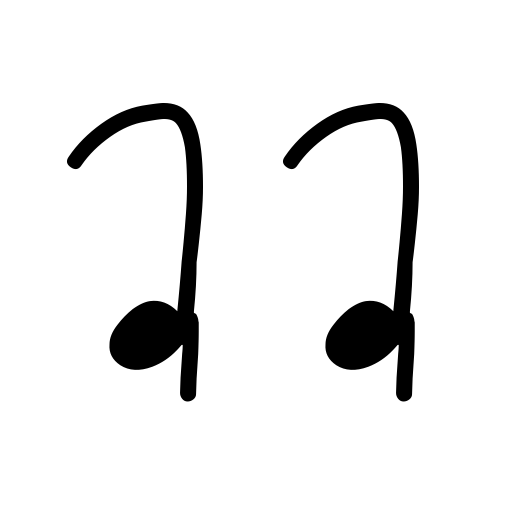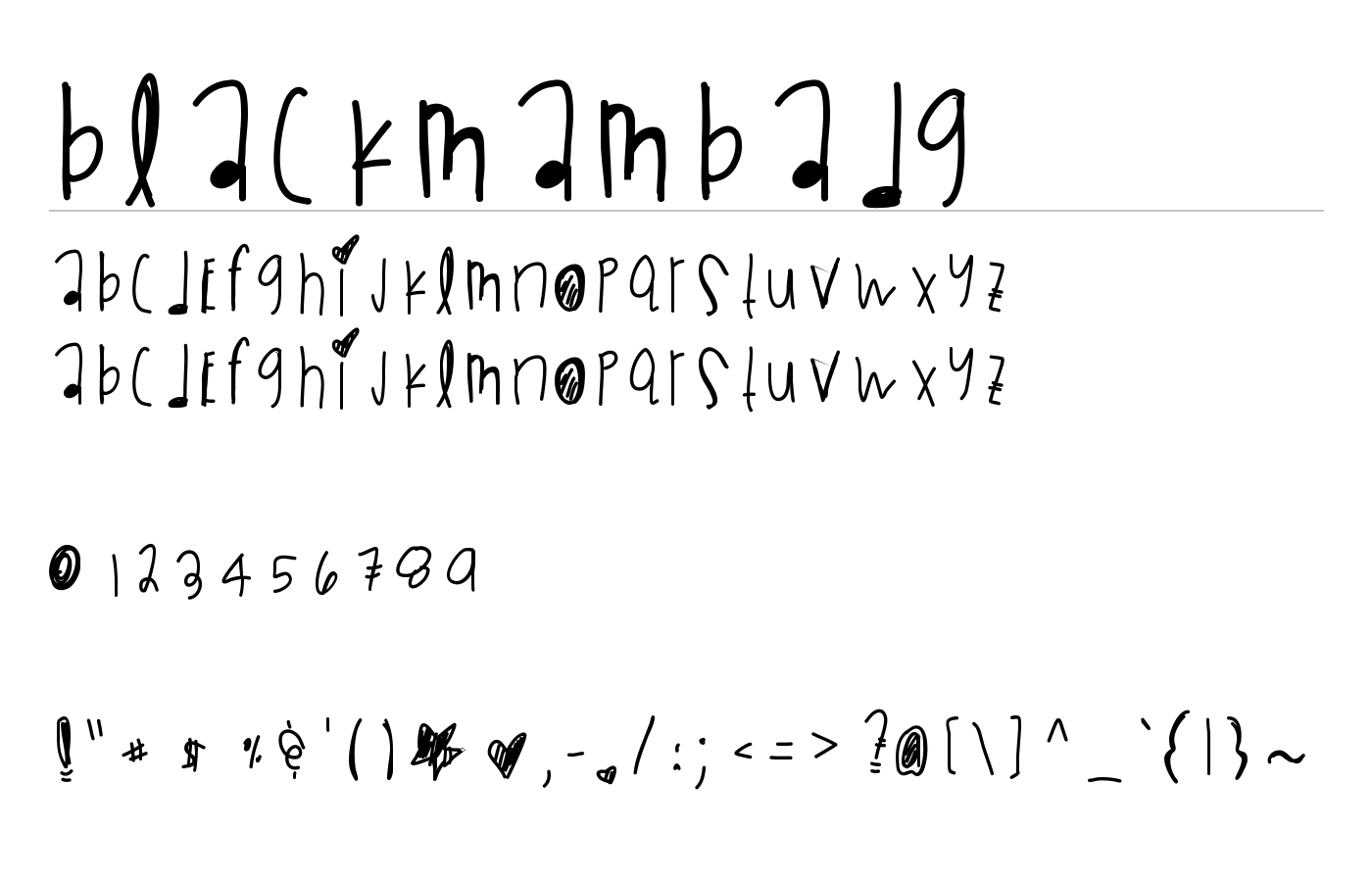
BlackMambaDg is a playful, handwritten sans serif font with tall, narrow letterforms and a casual, quirky vibe. Its uneven strokes and unique character shapes, like the heart-shaped dots, give it a fun, childlike personality that works well for informal designs, creative projects, and youthful branding. This font shines in headlines, invitations, and personal communication where a spontaneous, lighthearted feel is desired.
BlackMambaDg Font
About BlackMambaDg Font